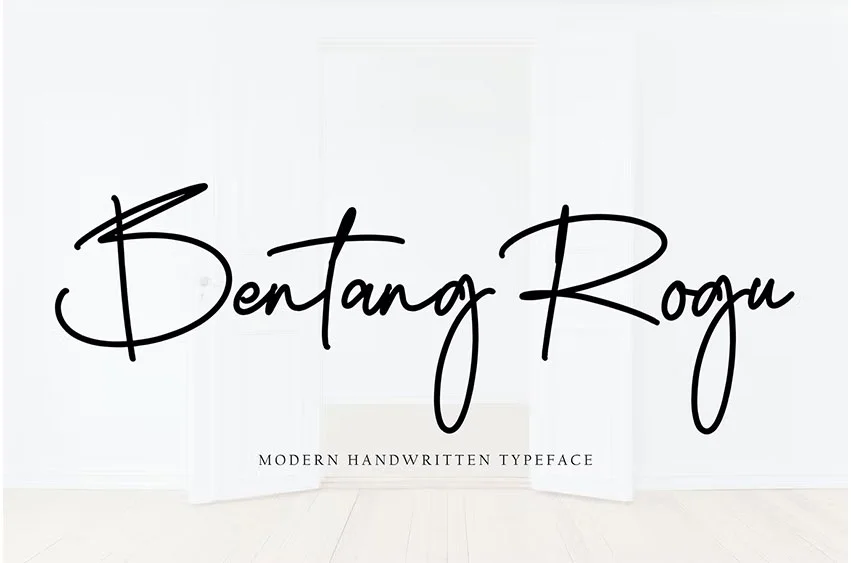
Bentang Rogu font with new style, this font will perfect for many different project ex: quotes, logo, blog header, poster, banding, letter, invitation, stationery, etc…